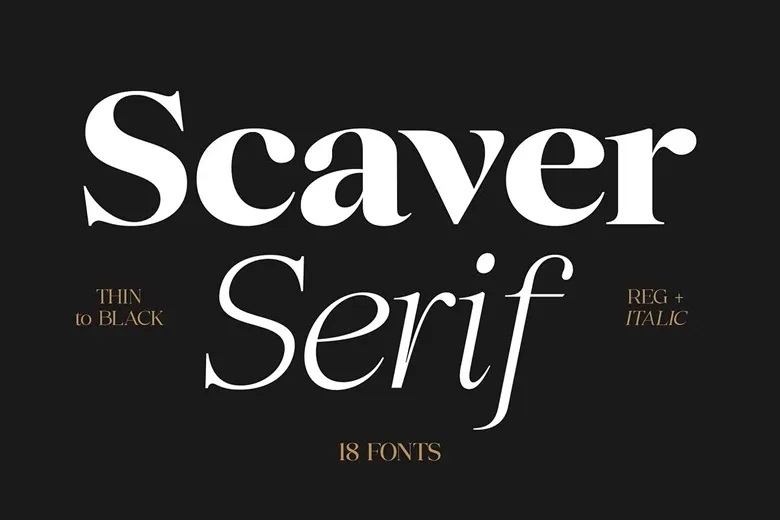
Scaver Font Family
Scaver is a distinguished contemporary serif font range that is intended to appeal to the creators who consider elegance, luxury, and impactful visuals. This typeface provides full freedom to do advanced typography with 18 well-designed styles ranging between Thin and Black with gorgeous italics.
Scaver is effective in logos, branding, fashion campaigns, editorial design, beauty brands, wedding invitations, and luxurious packaging. Scaver is the right typography to use in your next design project if you desire typography that is modern, classy, and of a high standard.
Scaver Serif Font Family